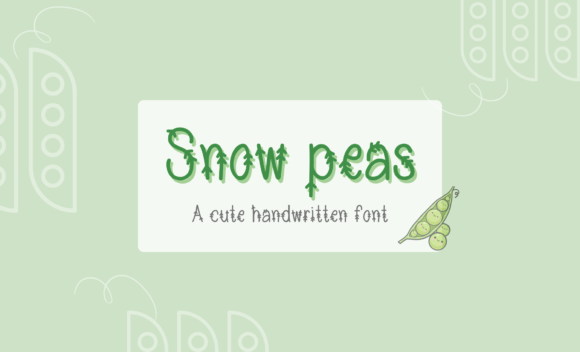
Introducing Snow Peas Font - The Beacon of Creativity!
Step into a world of enchanting typography with Snow Peas Font, a delightful script font that oozes cuteness, playfulness, neatness, and cleanliness. Crafted meticulously by LalavaStudio, this font is a true marvel that will transform your creative visions into captivating realities.
With its impeccable style, Snow Peas Font adds a touch of charm to any digital print, making it the perfect choice for expressing yourself on social media platforms like Facebook and Instagram. Its versatility shines through in planners and journals, enhancing your personal expressions with a unique flair.
Let your imagination run wild as you adorn your presentations with Snow Peas Font, leaving a lasting impression on your audience. Its versatility knows no bounds, making it the ideal companion for a multitude of occasions.